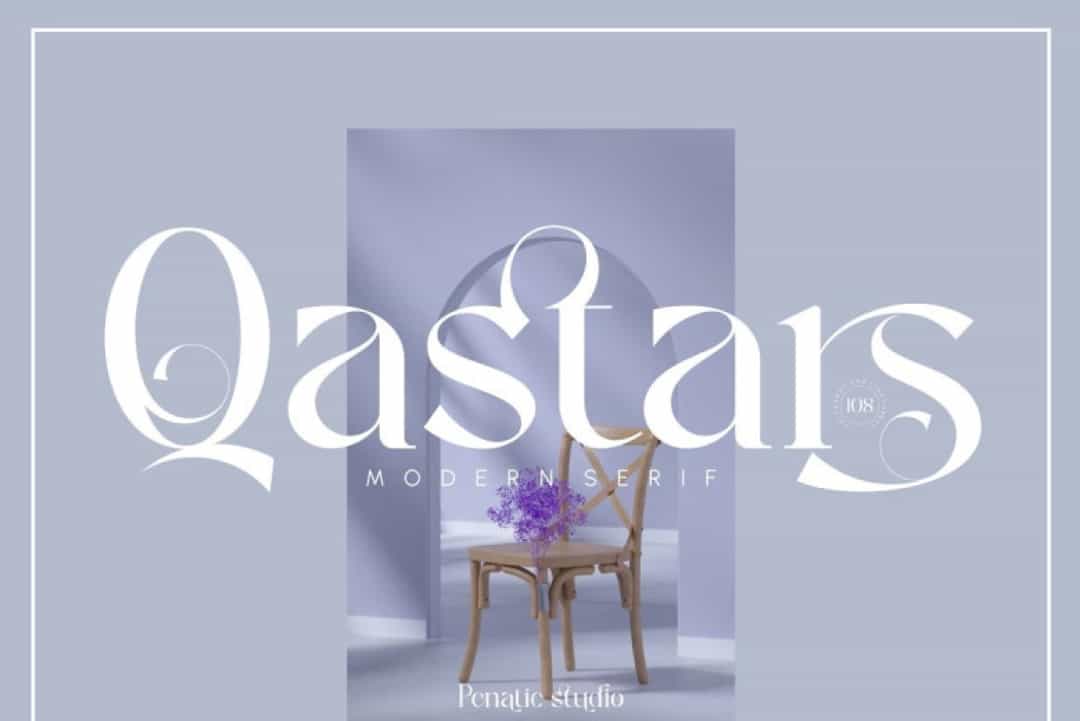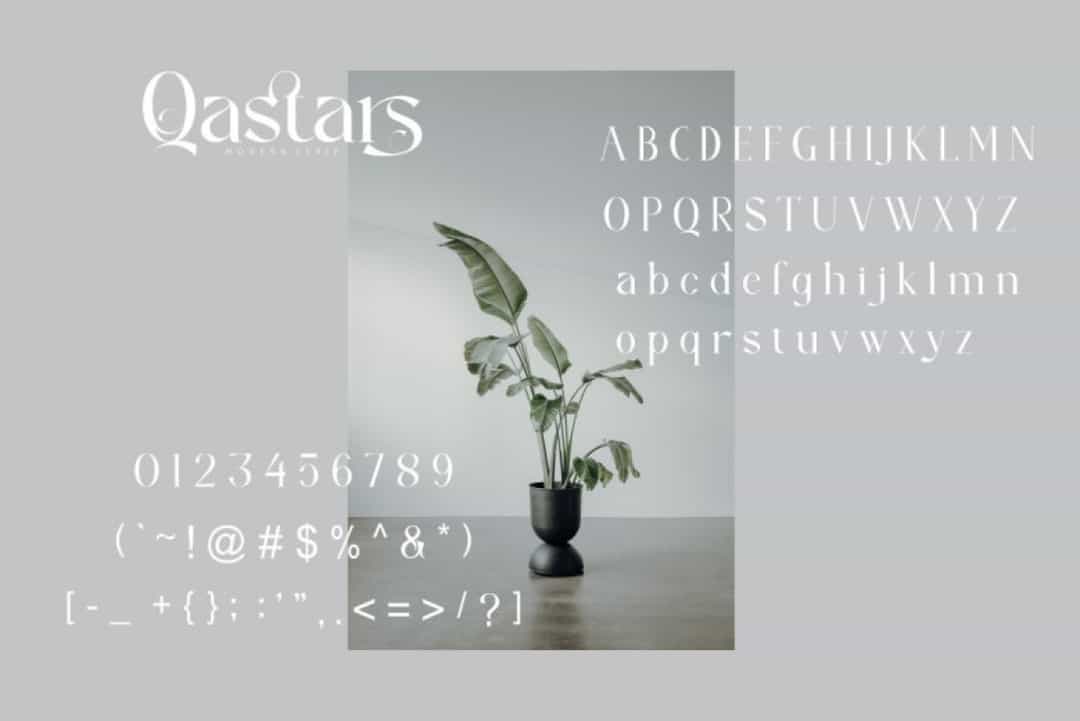
Qastars is an elegant contemporary serif typeface which was carefully designed to make each letter easy for readers to read, as well as offering various ligatures and alternative letters that make creating variations easy for each letter.